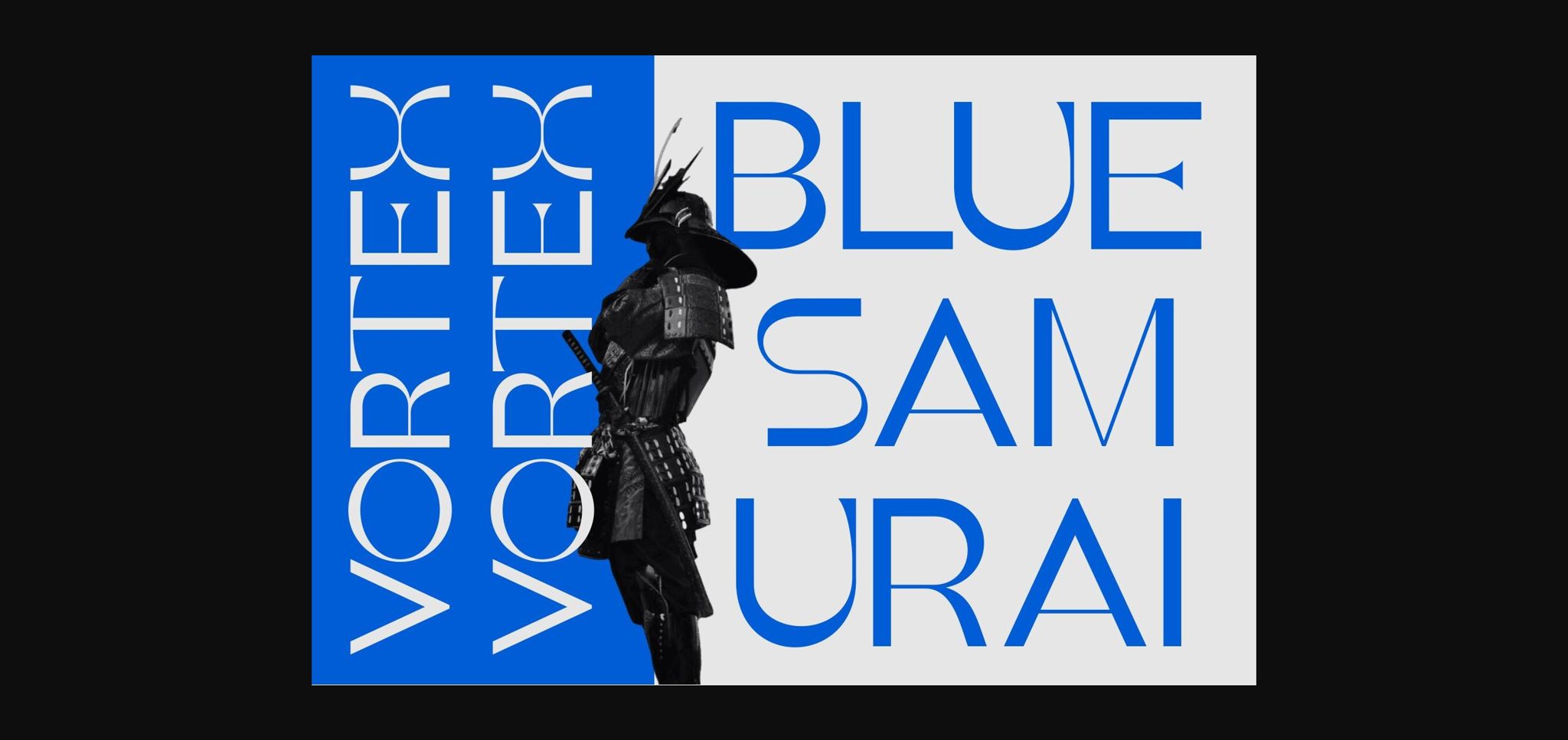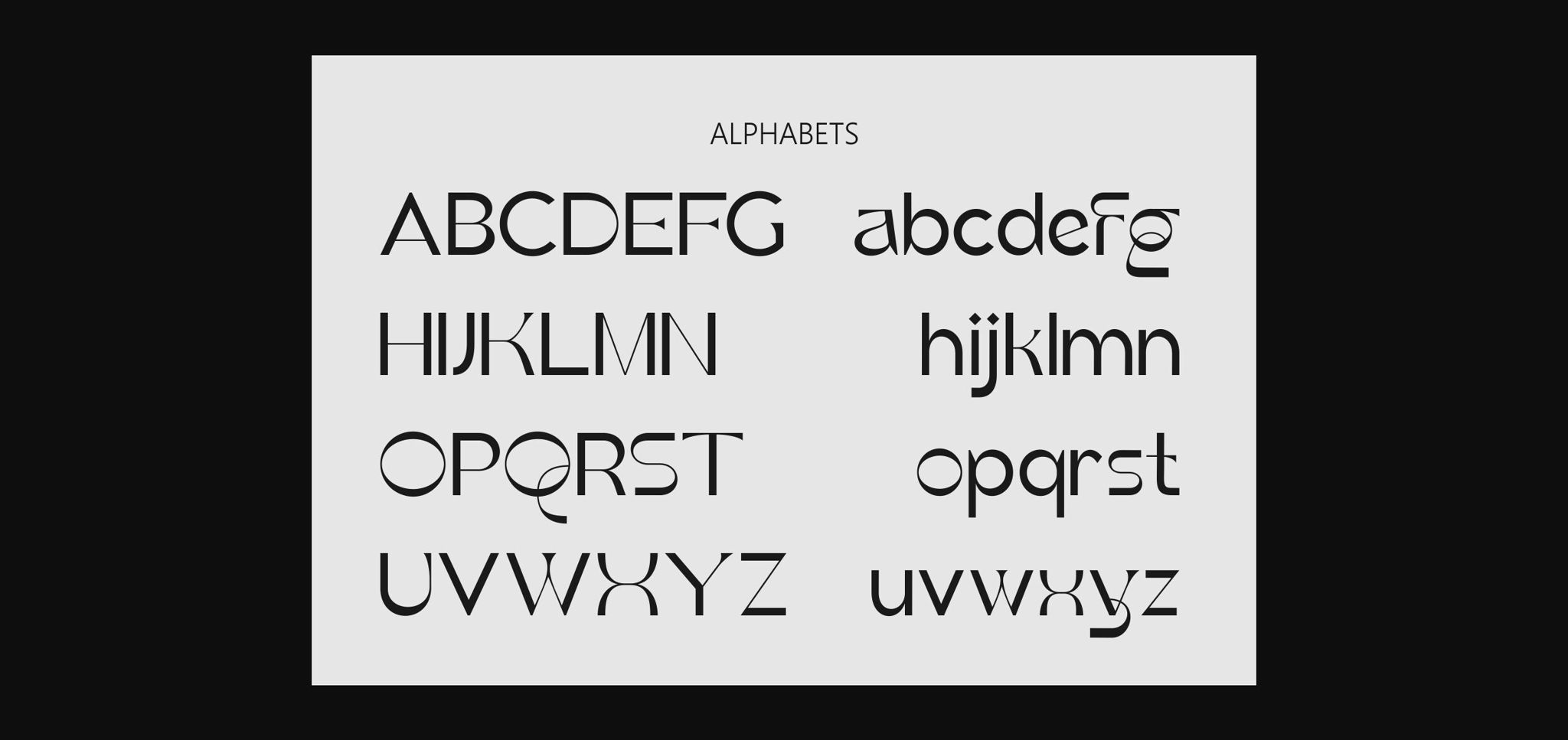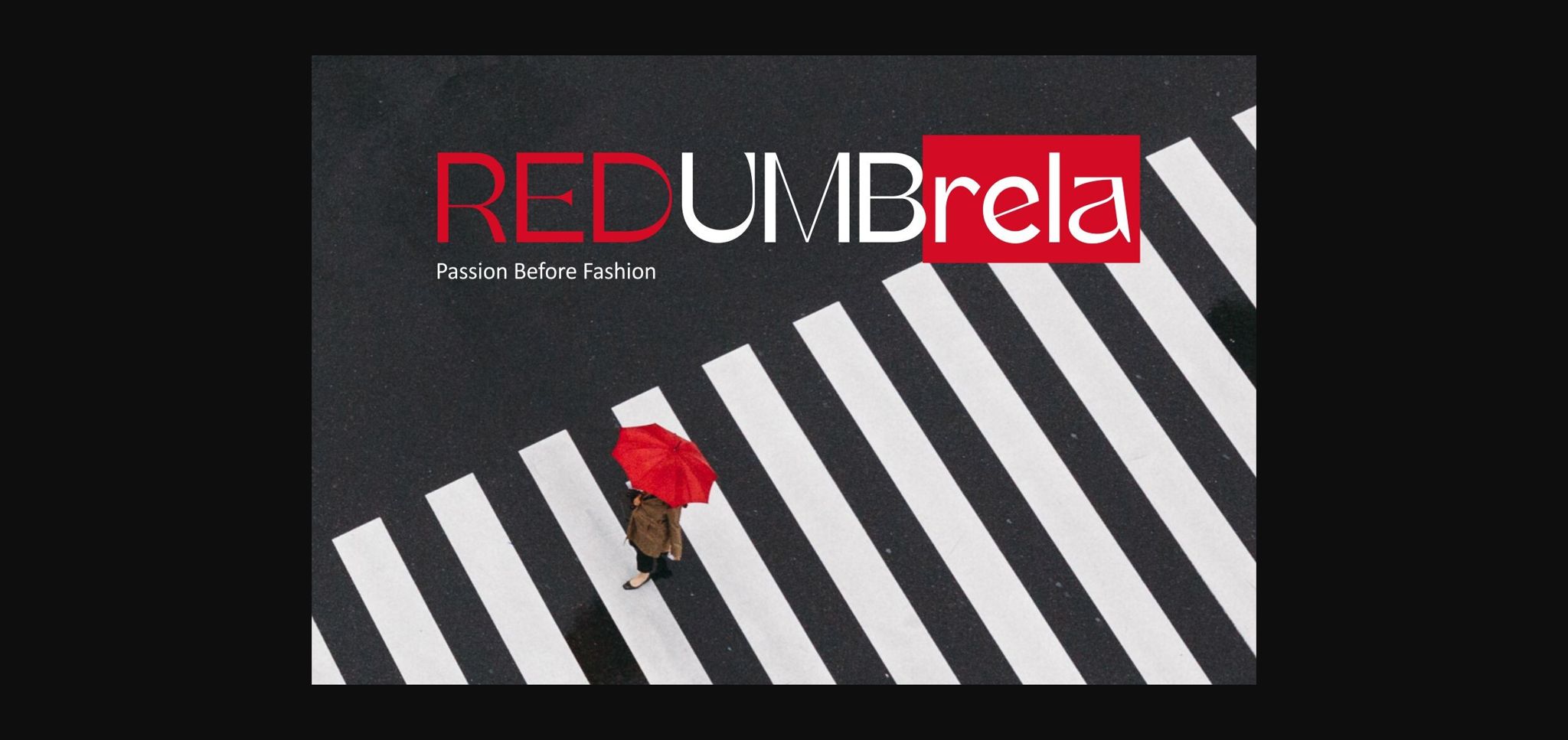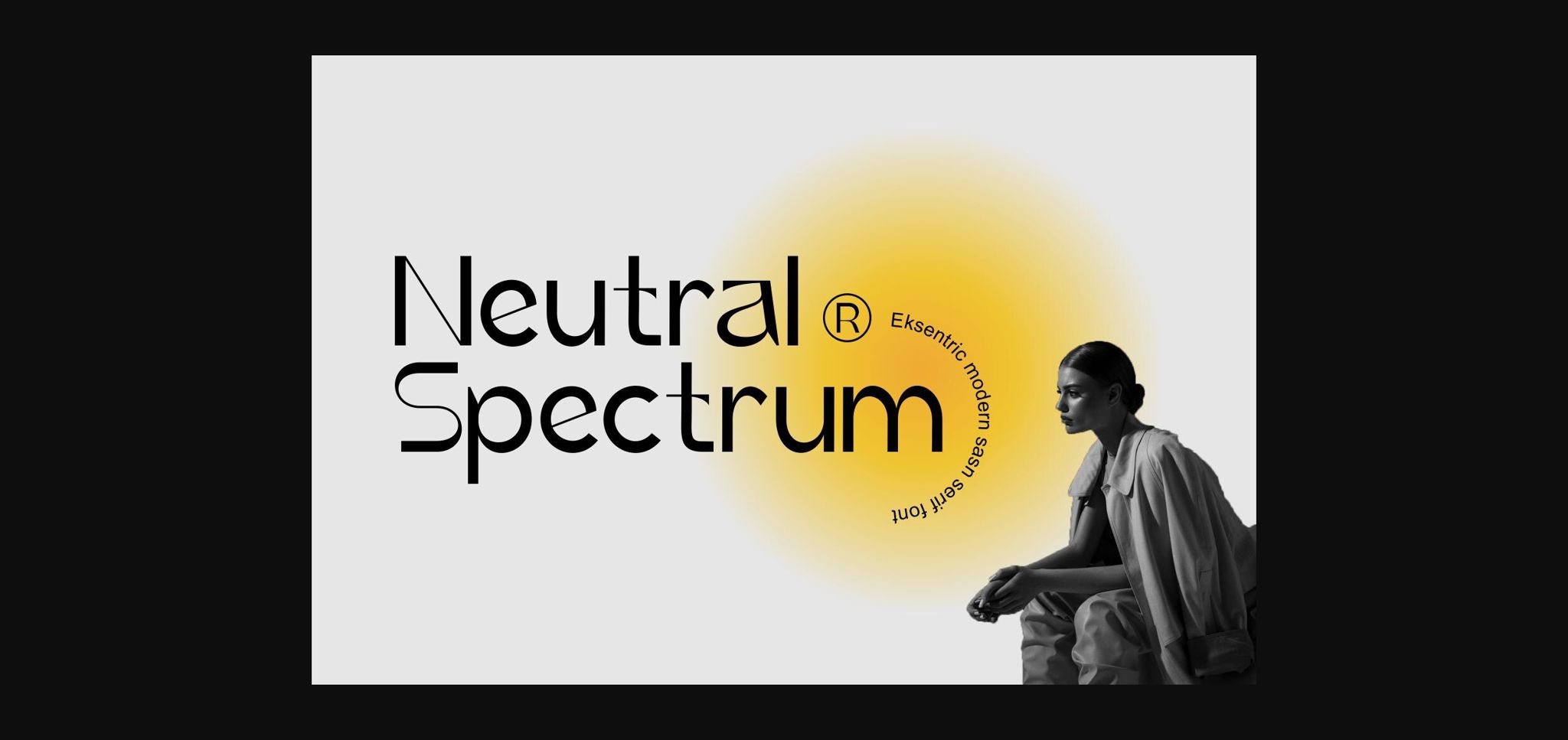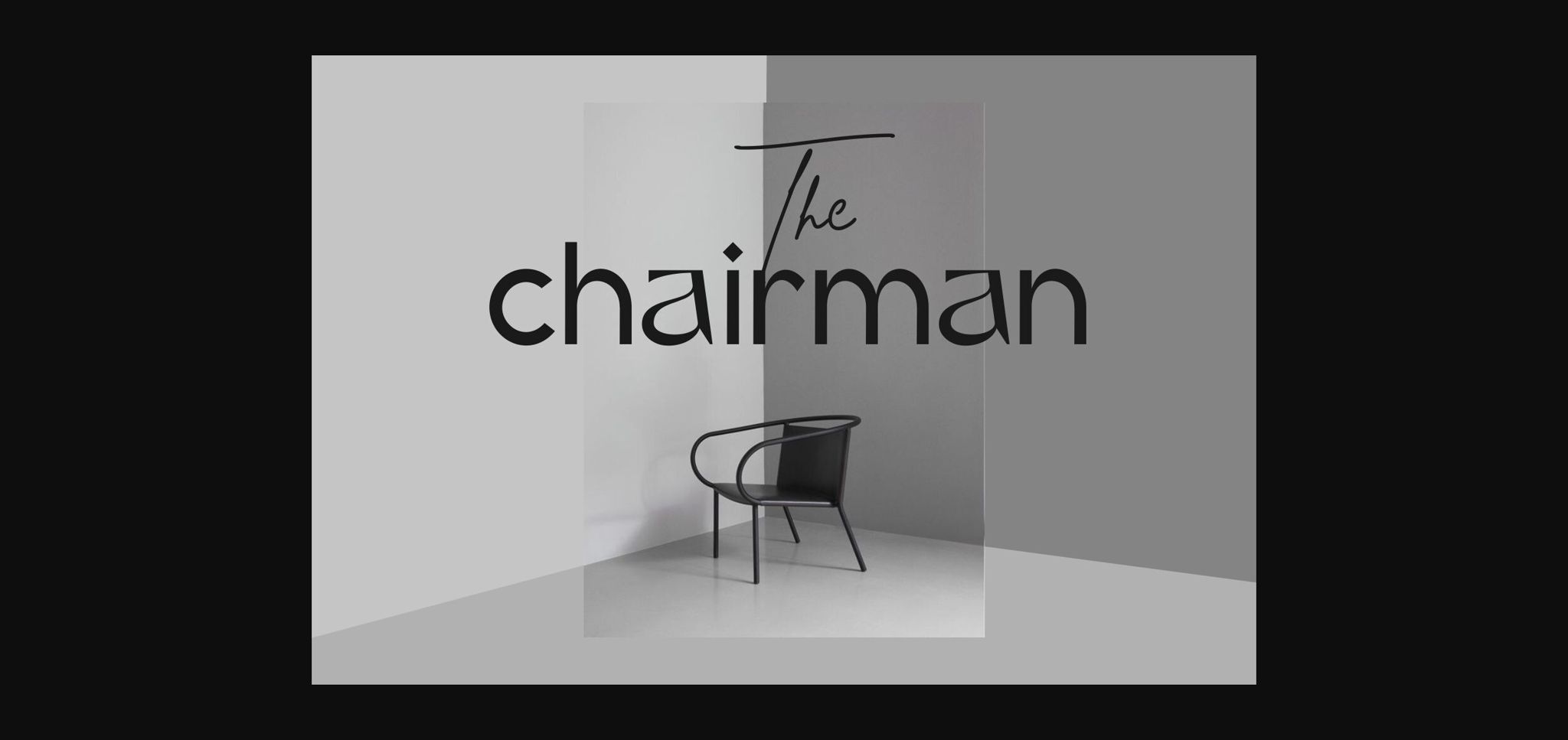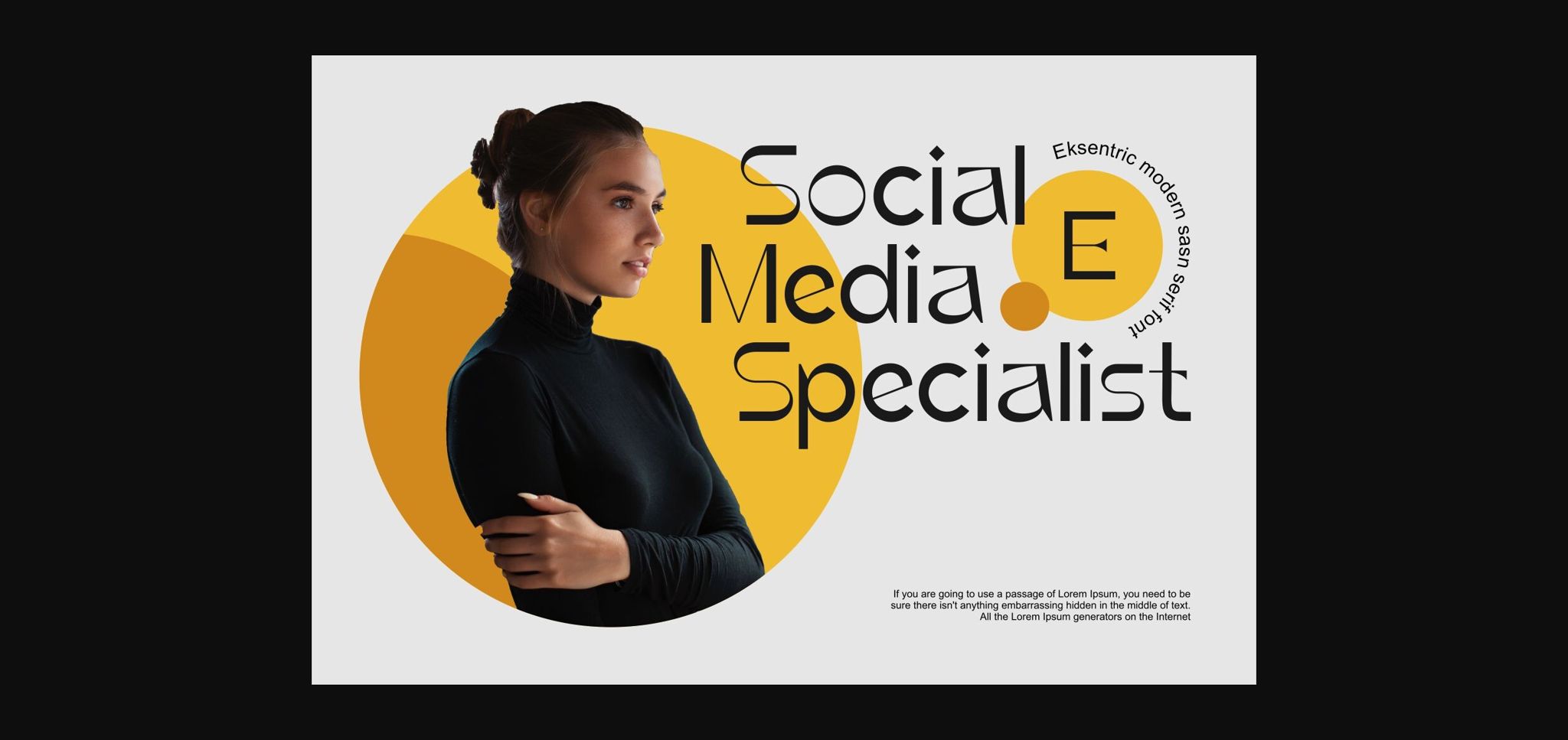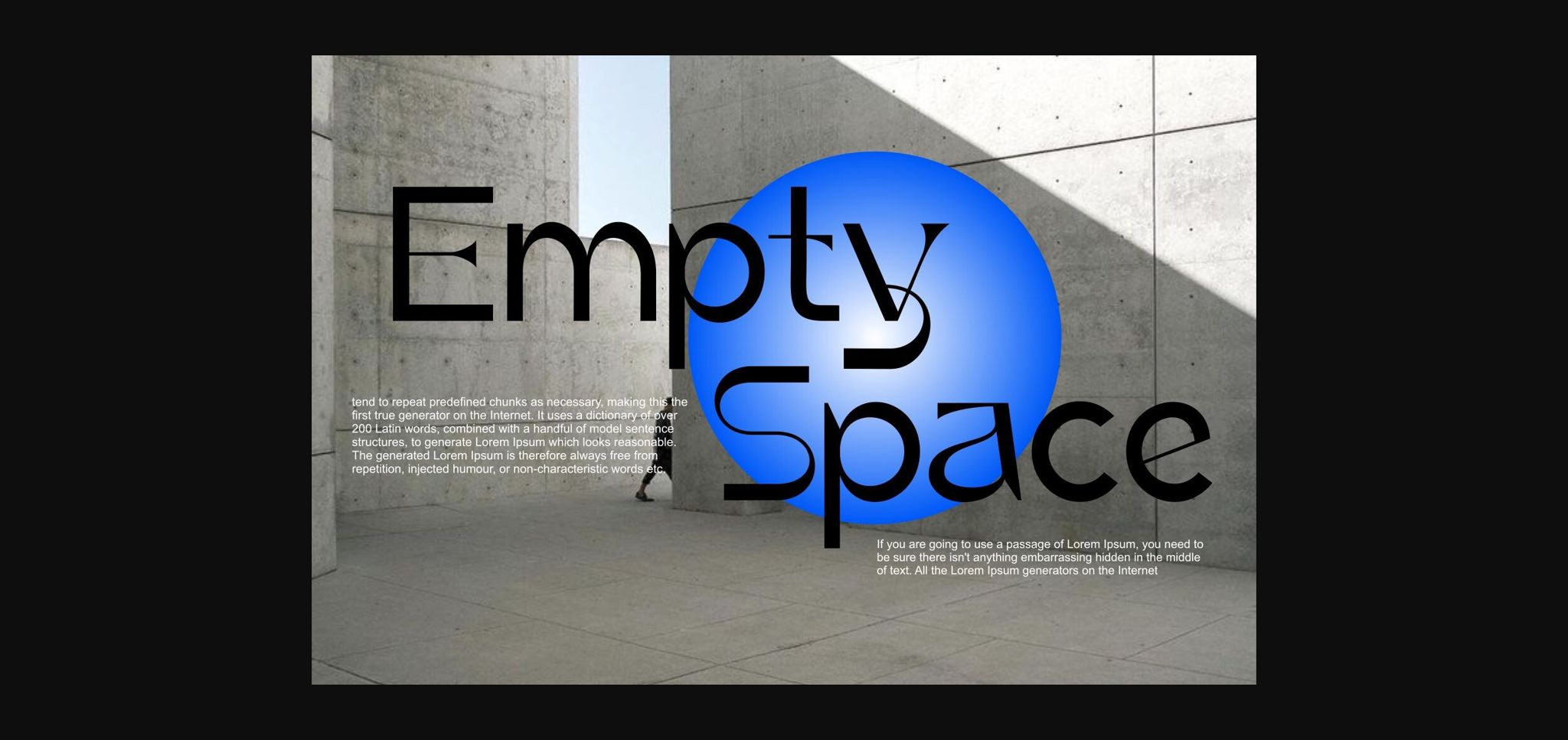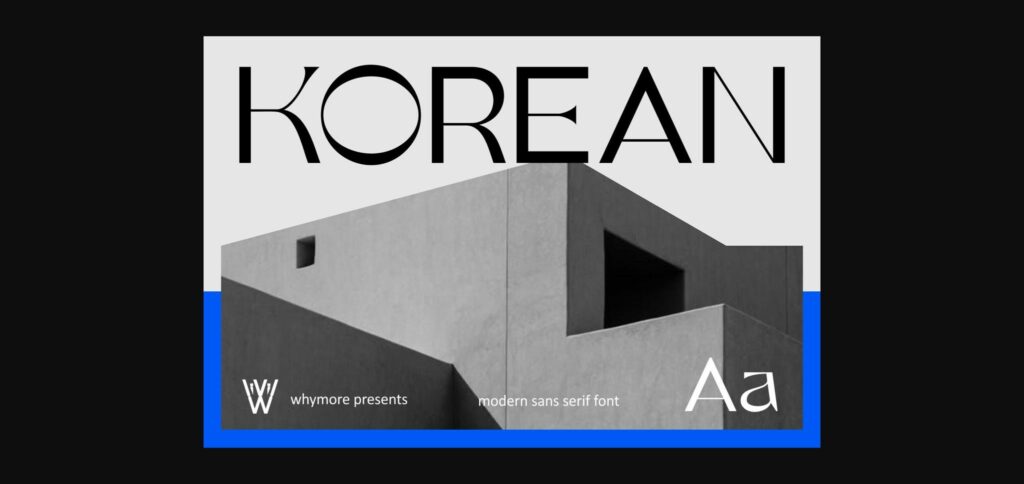
Korean Font
About Korean Font
.The versatile nature of the Korean font makes it suitable for headlines, logos and lettering. Its legibility ensures clear communication yet invites a sharp eye catch. Korean is the perfect choice for those looking for a typeface that embodies the Future and sophistication that will not be limited by time.